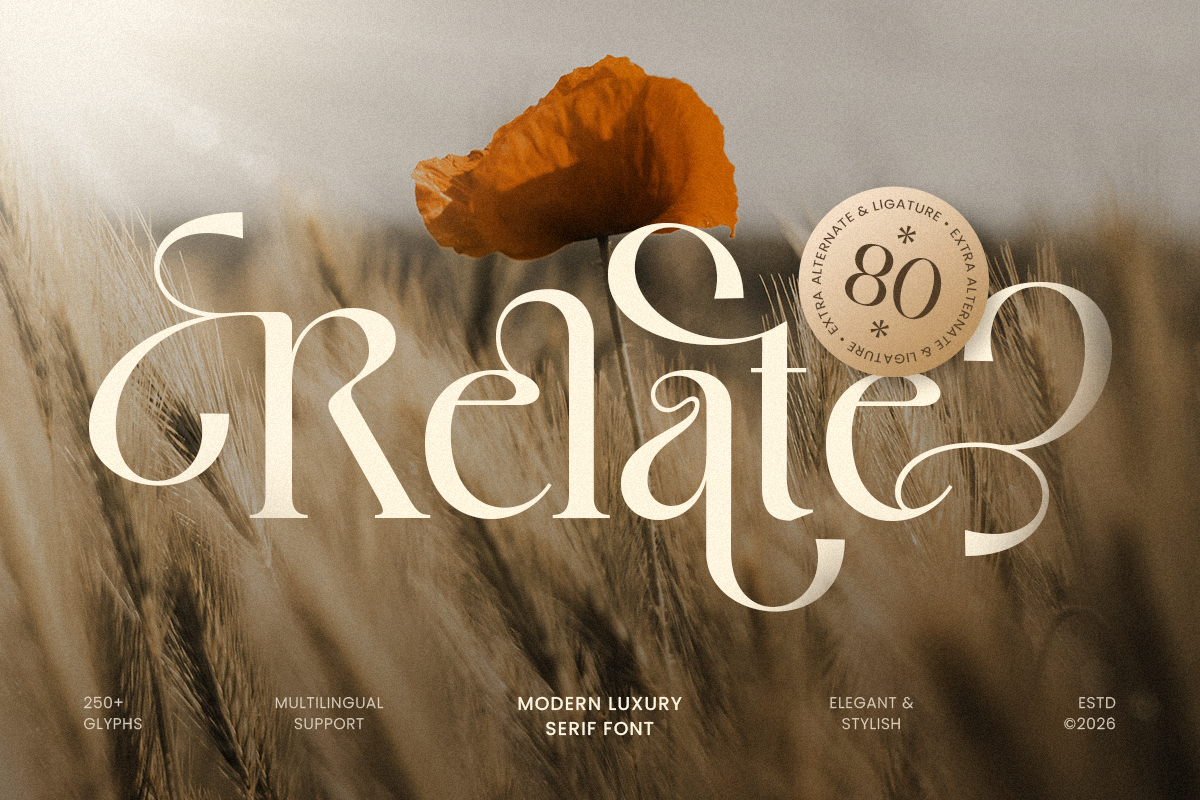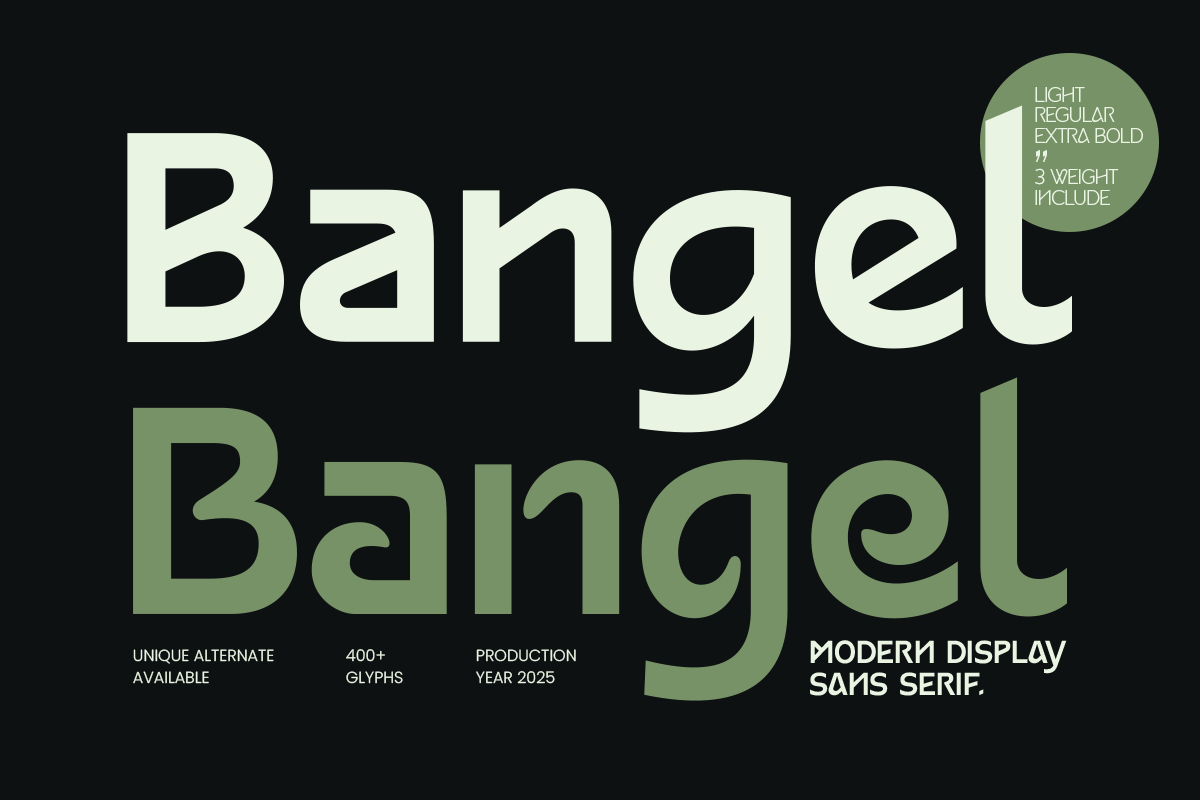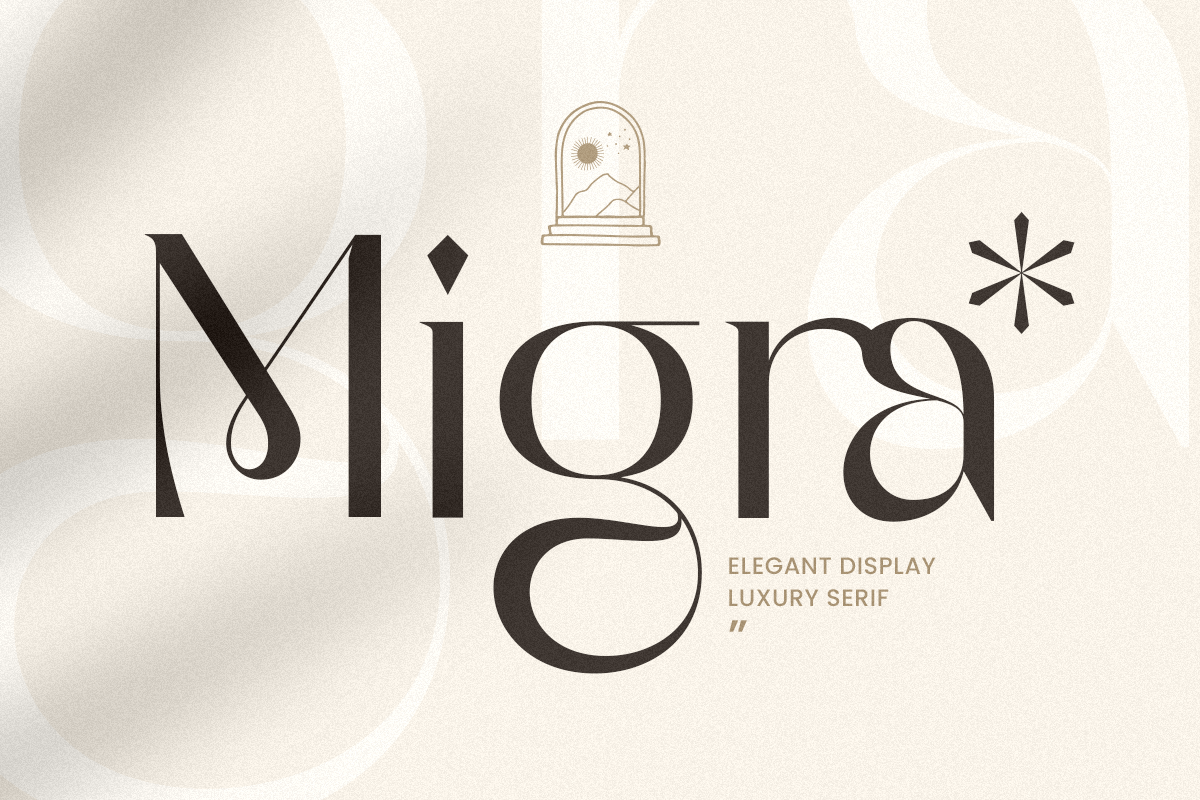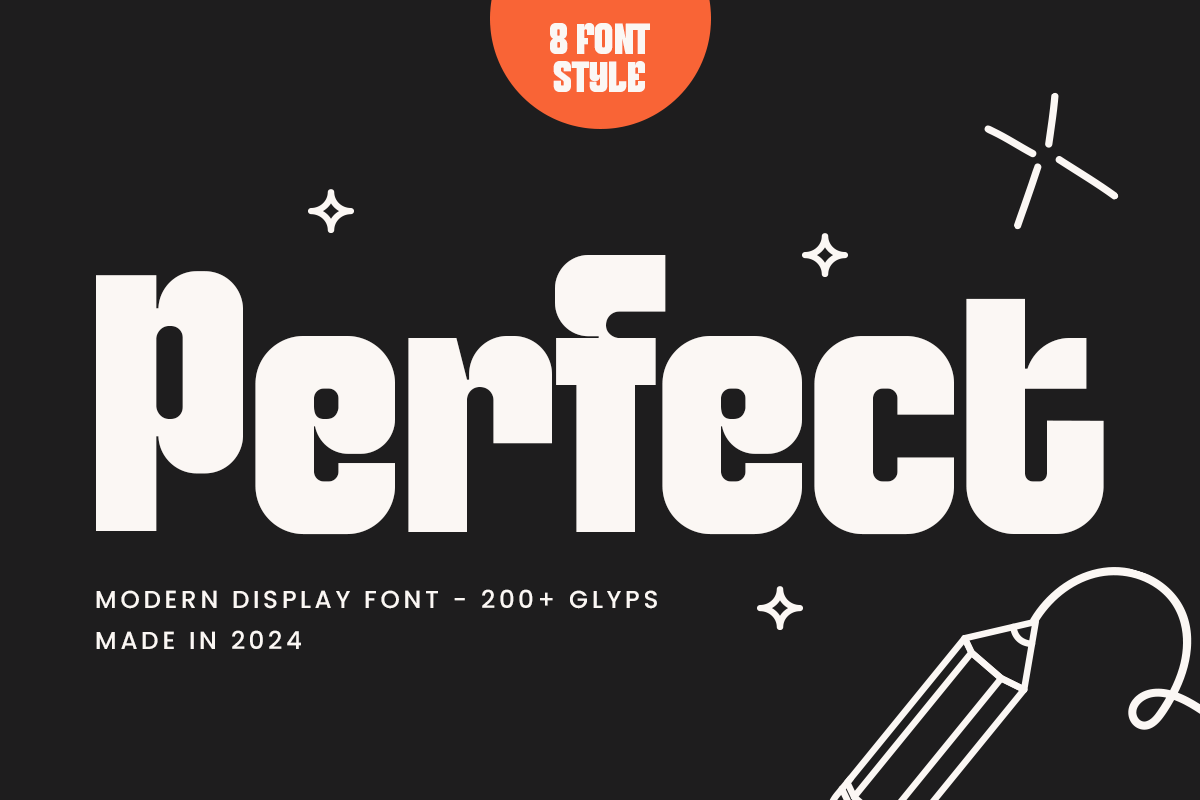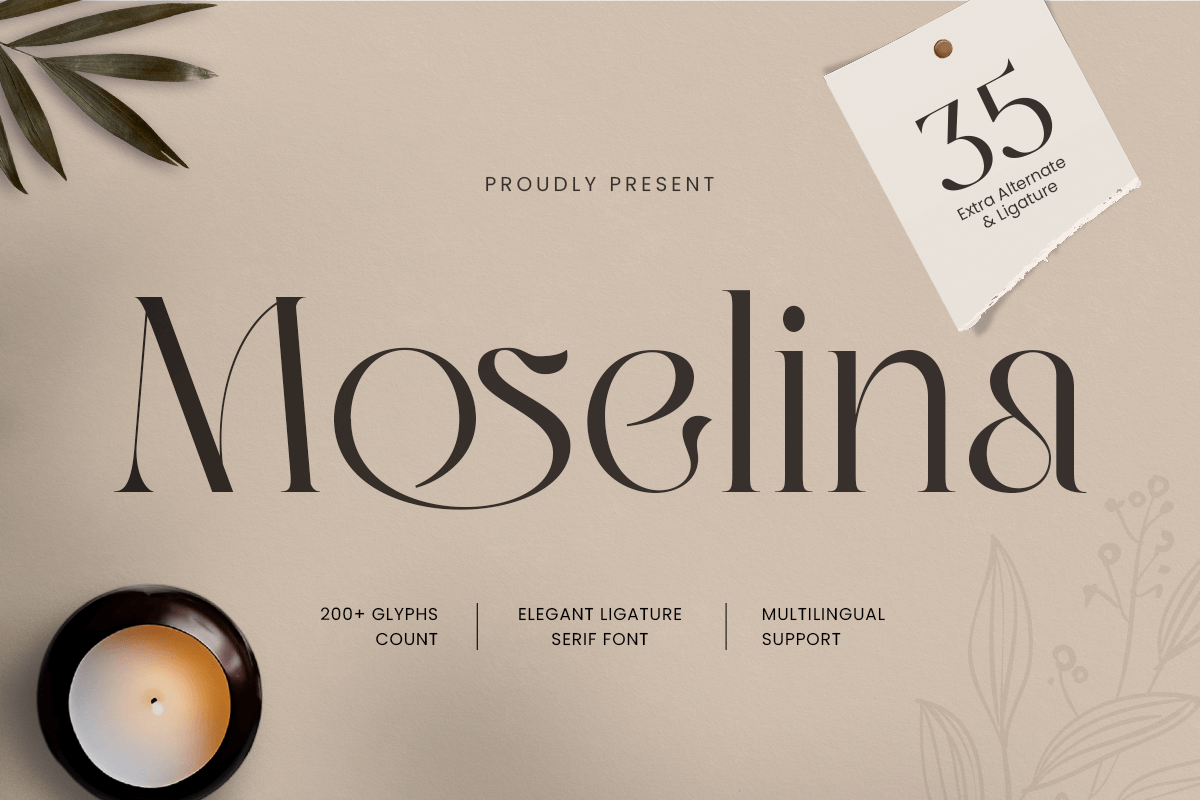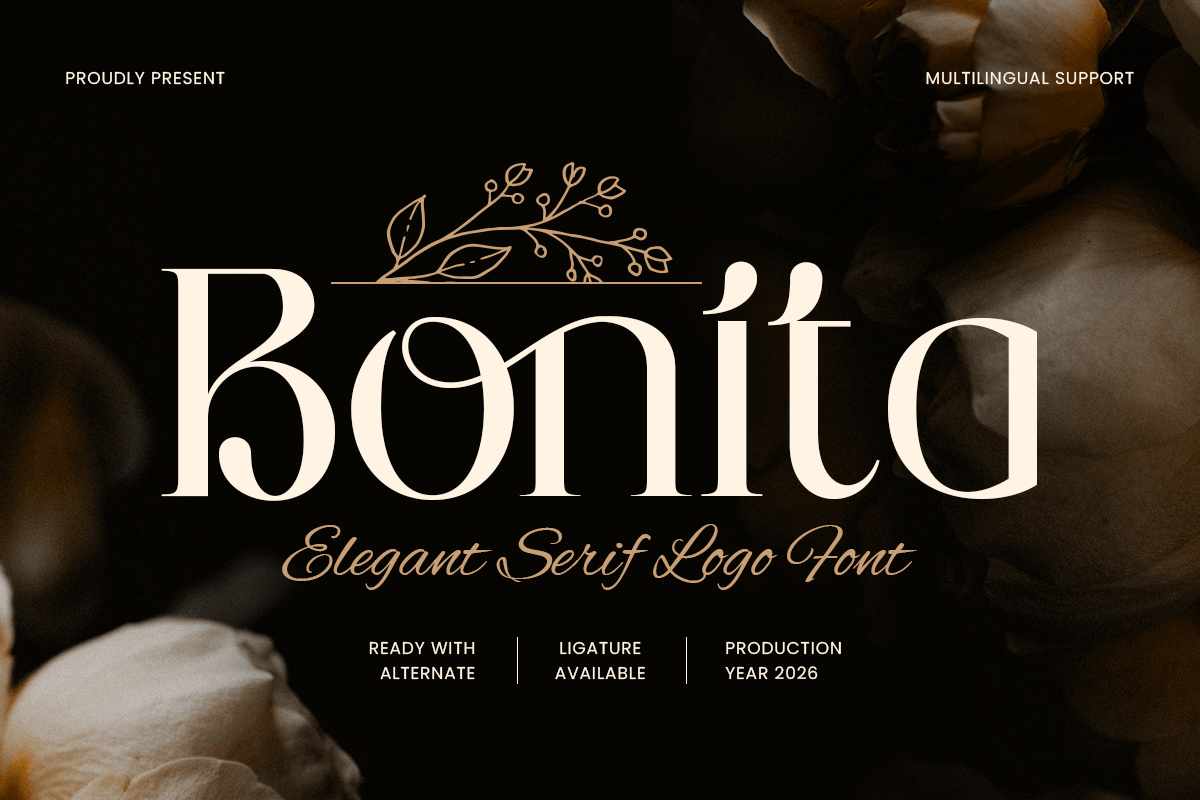
March 2026 Design Ideas, Holidays, and Font Inspiration
Find the best March 2026 design ideas, holiday inspiration, and font styles for awareness campaigns, editorial content, and seasonal branding.
March 2026 Design Ideas, Holidays, and Font Inspiration
March has a nice kind of creative tension. For designers, that makes it one of the most flexible months in the calendar. The visual mood can go fresh, expressive, empowering, poetic, playful, or a little more editorial depending on the campaign direction. It carries the energy of transition, which is exactly why it works so well for visual storytelling. It is a month that can support awareness campaigns, community-centered content, elegant quote graphics, seasonal product promos, and editorial-style social posts without feeling forced.
March 2026 has several strong moments that designers can translate into visual campaigns. A few of the most useful ones are World Wildlife Day on March 3, International Women’s Day on March 8, International Day of Happiness on March 20, and World Poetry Day on March 21. These observances are widely recognized by the United Nations or UNESCO and offer very different creative directions, from awareness-based visuals to poetic editorial content.
March Color and Visual Theme Ideas
March is a good month to explore femininity with backbone. Elegant, yes. Soft, maybe. But never passive. March works best when the color story feels fresh but still controlled. It is not quite the time for heavy summer brightness, and it usually feels better when the palette stays balanced. The goal is cheerful energy with enough restraint to keep the design useful for real brands.
Some strong March palette directions:
• lilac
• soft green
• muted coral
• fresh cream
• dusty floral pink
• warm beige
• pale sky blue
• botanical sage
The mood should feel:
• airy
• optimistic
• soft but awake
• colorful without becoming noisy
• seasonal without looking childish
March Alternative Fonts
Bonita - Elegant Serif Logo Font
Bonita is an elegant serif logo font designed to deliver refined sophistication with a clean, modern edge. With graceful serif details, balanced proportions, and a polished rhythm, this typeface creates a premium visual tone that feels timeless, confident, and instantly brand-ready.
Bangel - Minimal Modern Font
Bangel  is a minimal modern font crafted for clean, professional, and contemporary design projects. Ideal for branding, logos, packaging, posters, and digital interfaces, it combines simplicity with sophistication for a timeless appeal.
Relate - Modern Decorative Serif Font
Relate is a modern luxury serif font designed to deliver refined elegance with a clean contemporary edge. Featuring polished serif details, balanced proportions, and a confident visual rhythm, this typeface creates a premium tone that feels stylish, timeless, and instantly brand-ready.
Perfect - Modern Display Font Family
Perfect is a modern display font family crafted with sleek, clean lines to make your designs pop. Its bold and sophisticated style makes it ideal for branding, headlines, and digital projects where clarity and impact are key. Whether you're working on logos, posters, or websites, Perfect delivers an unmistakable modern flair.
Moselina - Elegant Ligature Serif Font
Moselina is an elegant ligature serif font crafted to deliver a refined, premium tone with a distinctive signature flow. Built with graceful serif structure and carefully designed ligatures, this typeface creates a sophisticated rhythm that feels luxurious, modern, and perfectly suited for high-end branding.
Migra - Elegant Display High Contrast Font
Migra is an elegant display luxury sans serif font that brings a refined, high-end aesthetic to your design projects. Perfect for upscale branding, luxury logos, and sophisticated editorial designs, Migra combines bold, graceful letterforms with a timeless sans serif structure that exudes elegance.
FAQ
Q: What are the best March design themes for 2026?
A: Some of the strongest March design themes for 2026 are empowering awareness visuals, fresh seasonal storytelling, editorial quote content, botanical moods, and poetry-inspired layouts. International Women’s Day on March 8 and World Poetry Day on March 21 are especially useful creative anchors.
Q: What colors work best for March seasonal campaigns?
A: Lilac, soft green, muted coral, fresh cream, sage, and soft floral tones work especially well. The best March palettes usually feel bright but controlled.
Q: How can designers create meaningful March content?
March is a month full of creative flexibility. It gives designers space to create visuals that feel fresh, expressive, and meaningful at the same time. From awareness-driven campaigns like International Women’s Day to more editorial and poetic content for World Poetry Day, March offers a wide visual range that can work across many brand styles. With the right combination of typography, color, and message, this month becomes a strong opportunity to build campaigns that feel relevant, thoughtful, and visually alive.